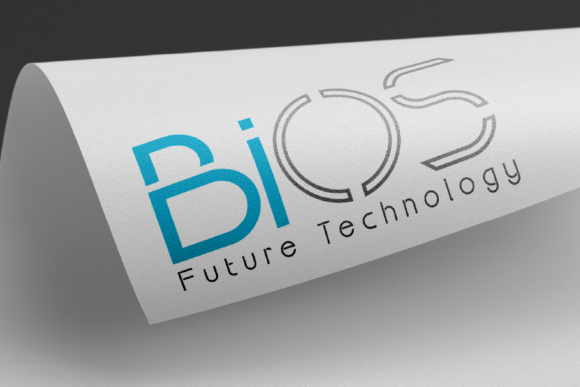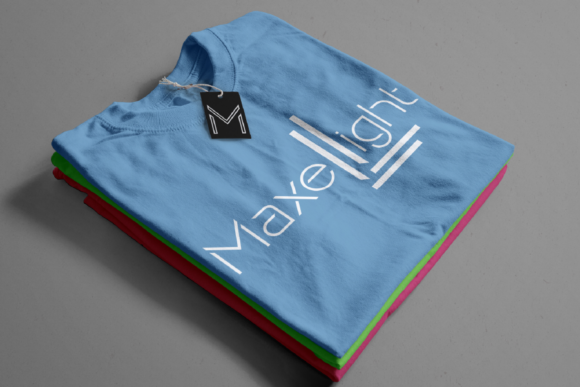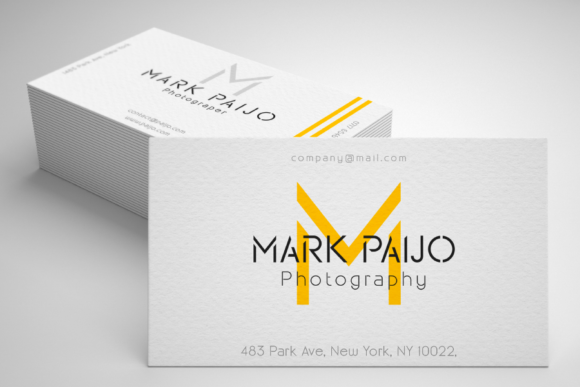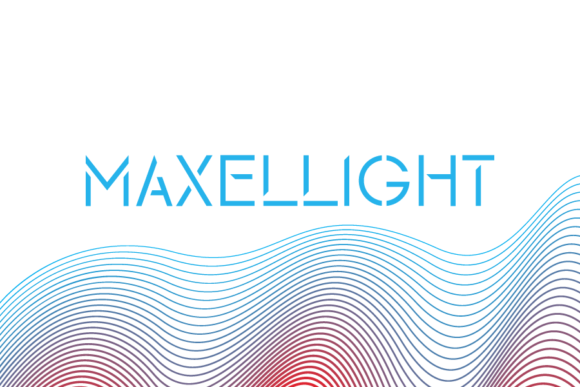
Introduction to Maxellight Font
Maxellight is a distinct, elegant sans serif that blends traditional influences into a contemporary aesthetic.
Its well balanced Latin details contain distinctive contrasts Use Maxellight to achieve an exquisite, yet subtle look and maximum versatility.